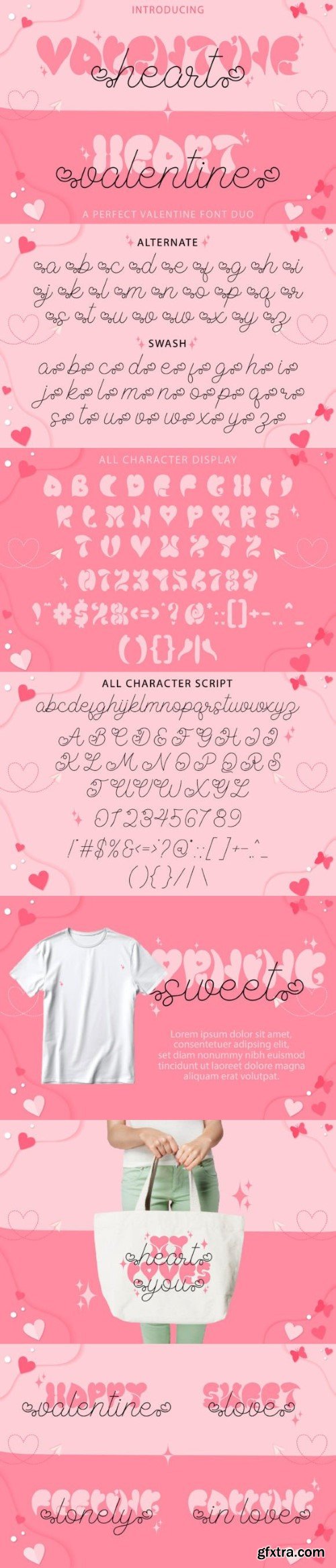
爱心字体
Valentine Heart Duo is a fun and playful font duo (script and retro look). This font is inspired by the beauty of ribbons so it’s perfect for adorable and kid-related products. This font is PUA encoded which means you can access all the glyphs and swashes easily!